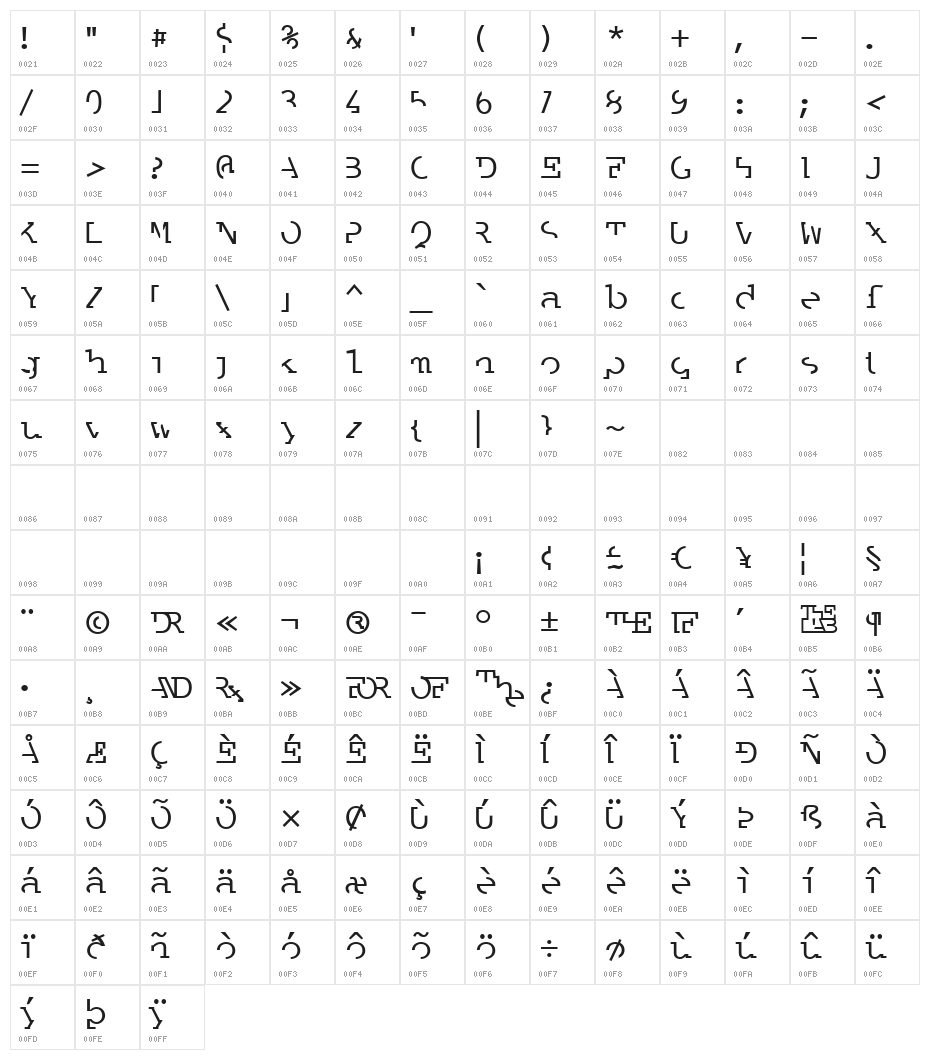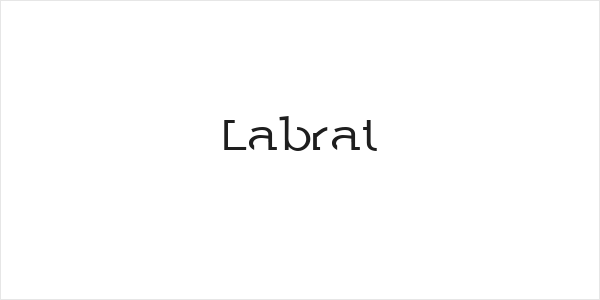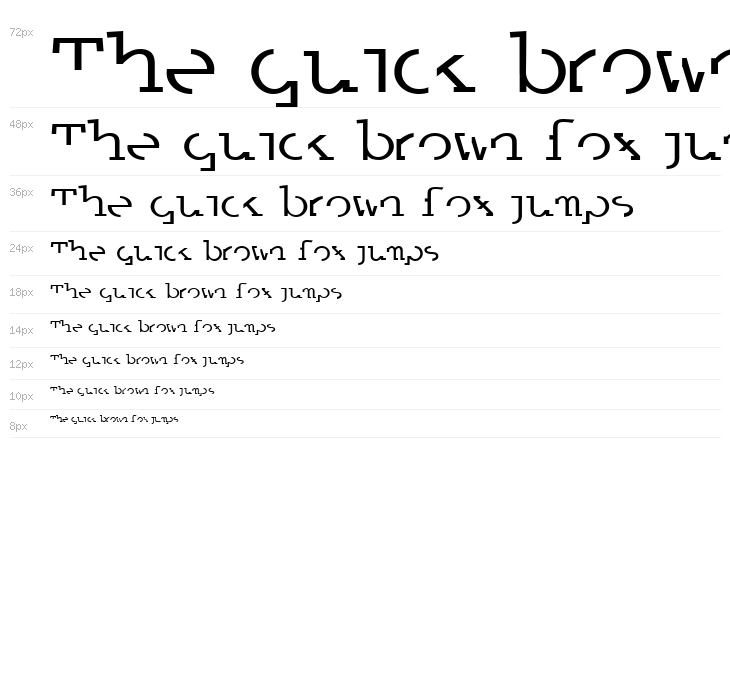
Labrat Font
Labrat Description
This font features a unique and modern design with a geometric and angular style. Each character is crafted with sharp edges and distinct cuts, giving it a futuristic and tech-inspired appearance. The uppercase and lowercase letters maintain a consistent aesthetic, while the numerals and special characters complement the overall design. The font's structure is clean and minimalistic, making it suitable for contemporary projects that require a bold statement. Its distinctiveness lies in the unconventional shapes and forms, which can add a creative edge to any design.
| Character Spacing | Normal |
| Use Case | Logos, Headlines, Posters |
| Proposed Projects | Ideal for tech branding, modern posters, digital interfaces, and futuristic designs. |